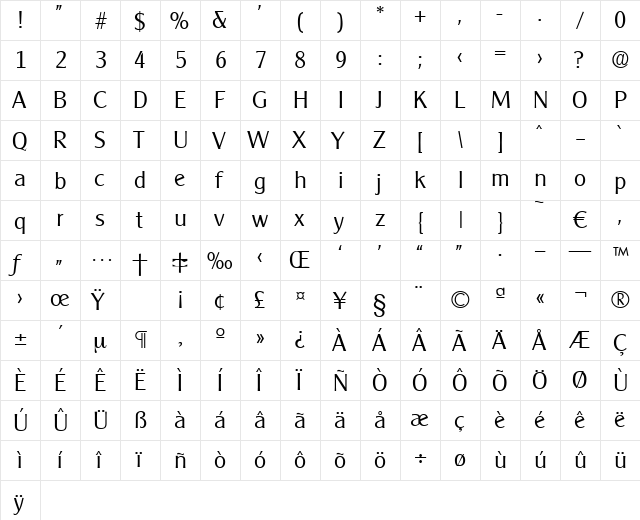
Cleargothic-Light Regular Font Preview
Cleargothic-Light Regular
Design Context for Cleargothic-Light Typeface
Cleargothic-Light has the quiet confidence of well-executed sans-serif typography: versatile, unobtrusive, and dependable at any size. Its slender proportions lend an understated elegance to any composition.
A natural fit for high-end product packaging, luxury brand identities, and refined web typography.
Font Pairing: Pair Cleargothic-Light with a medium or bold serif for headlines — the weight contrast creates an elegant, high-end feel.
Pro Tip: Use Cleargothic-Light with generous tracking and line-height for the most luxurious effect — light sans-serifs reward spacious, considered layouts.